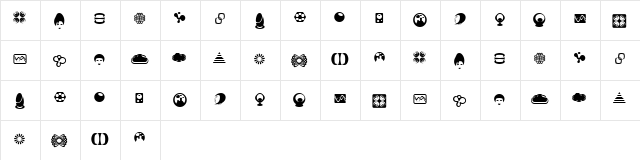
Eeronauts BV Regular Font Preview
Eeronauts BV Regular
Design Context for Eeronauts BV Typeface
Eeronauts BV is a composed and adaptable typeface that performs quietly and consistently across a wide range of design contexts.